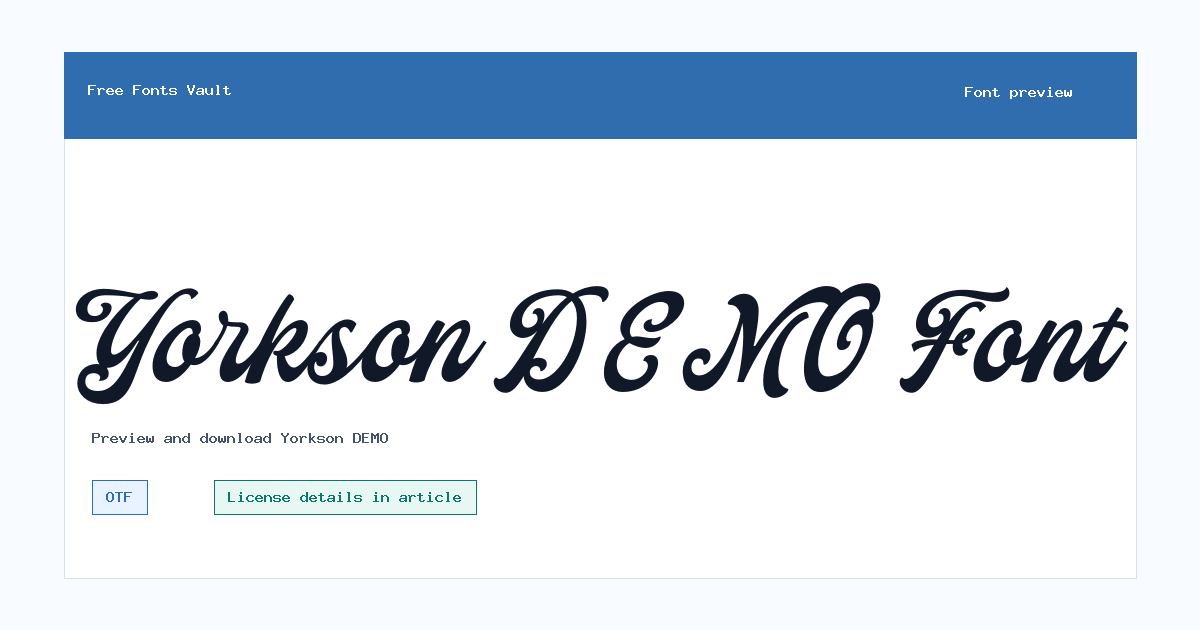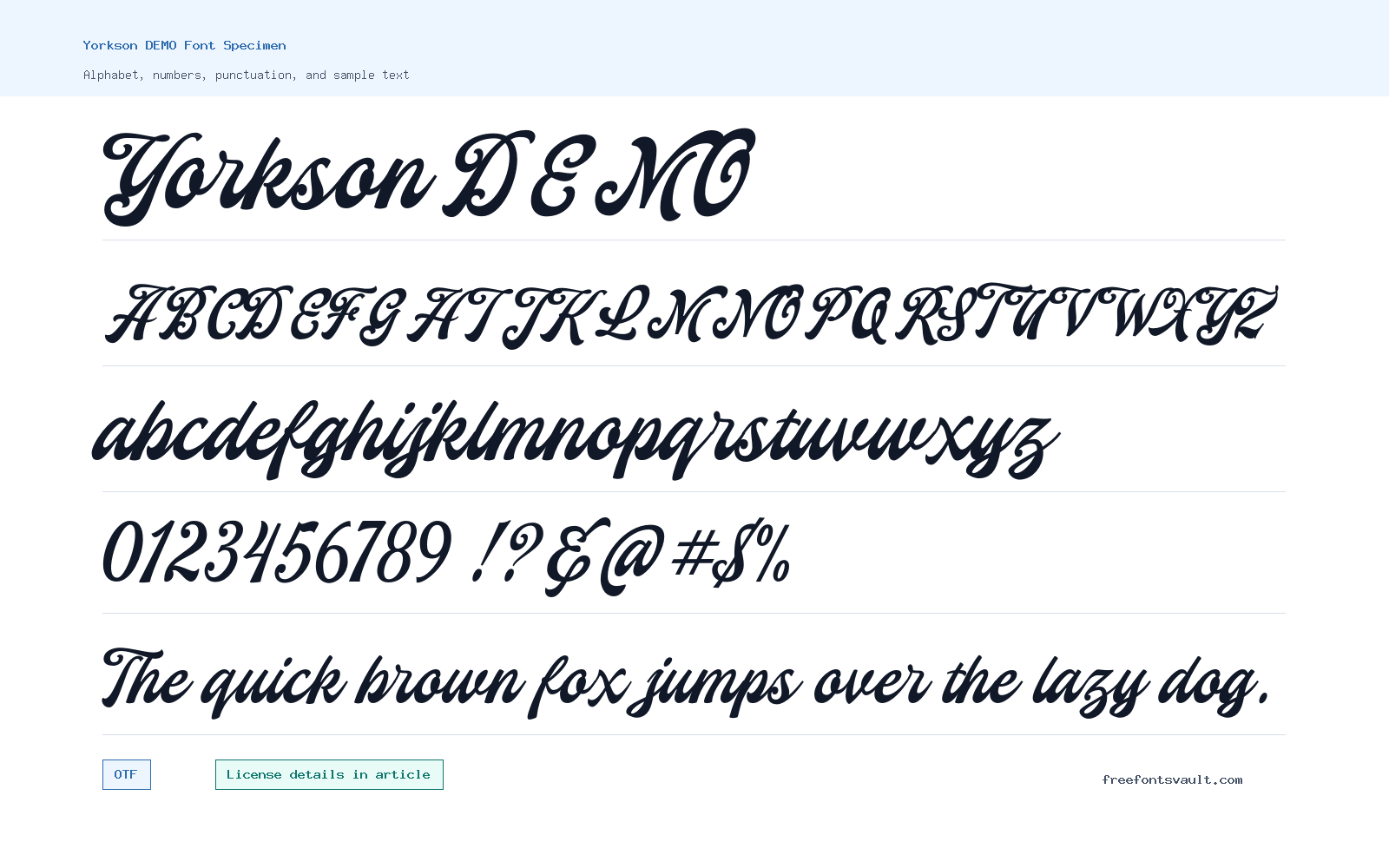
Yorkson DEMO
- Designer Letterhend Studio
- Foundry Letterhend Studio
Yorkson DEMO font.
Yorkson DEMO is a vintage script and logotype font by Letterhend Studio. It has an old-school sign-painter feel, making it a good fit for short display text, badge-style graphics, labels, and retro headline work.
About Yorkson DEMO
Yorkson DEMO uses a flowing script style with a bold, hand-lettered look. The letter shapes feel more like custom lettering than a plain writing font, so it works best when the text is short and meant to stand out. Try it for logos, product-style labels, apparel graphics, poster titles, badge layouts, and packaging mockups where a classic script voice is useful.
- Vintage sign-painter script style for logotypes, badges, and short display text
- Old-school lettering feel that pairs well with simple sans serif or slab serif support text
- Retro logos and wordmarks
- Badge and emblem designs
- Packaging and label mockups
- Apparel graphics
- Poster headlines
- Invitation or greeting-card titles
Yorkson DEMO is credited to Letterhend Studio, which is also listed as the foundry for the font.
Use Yorkson DEMO for short words and phrases where its script shape can stay readable. Test uppercase and lowercase combinations in the preview, and pair it with a clean, quieter font for dates, descriptions, prices, or other small supporting text. If the layout needs a full logo system, build the main word in Yorkson DEMO and use a simpler companion font for taglines, addresses, prices, or legal text so the script does not have to carry every detail.
Who designed Yorkson DEMO?
Yorkson DEMO is credited to Letterhend Studio.
What kind of font is Yorkson DEMO?
It is a script/logotype font with an old-school, vintage sign-painter look.
Where does Yorkson DEMO work best?
It works best in short display settings such as logos, badges, labels, packaging mockups, apparel graphics, and headline lettering.
Is Yorkson DEMO good for body text?
No. Its script style is better for short display text. Use a simpler companion font for long paragraphs or small details.